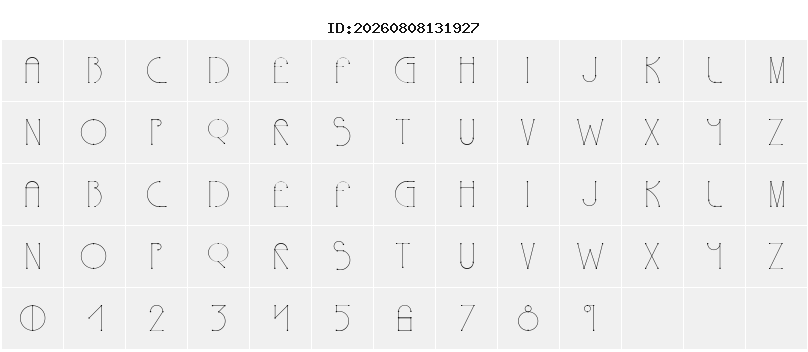
• Font Name: Polyline Typo
• Designer: Alejandro Londoño
About Polyline Typo.ttf
Polyline Typo.ttf is a modern, elegant sans-serif font designed for ultimate readability and visual harmony. Perfect for branding, headlines, web design, and print materials.